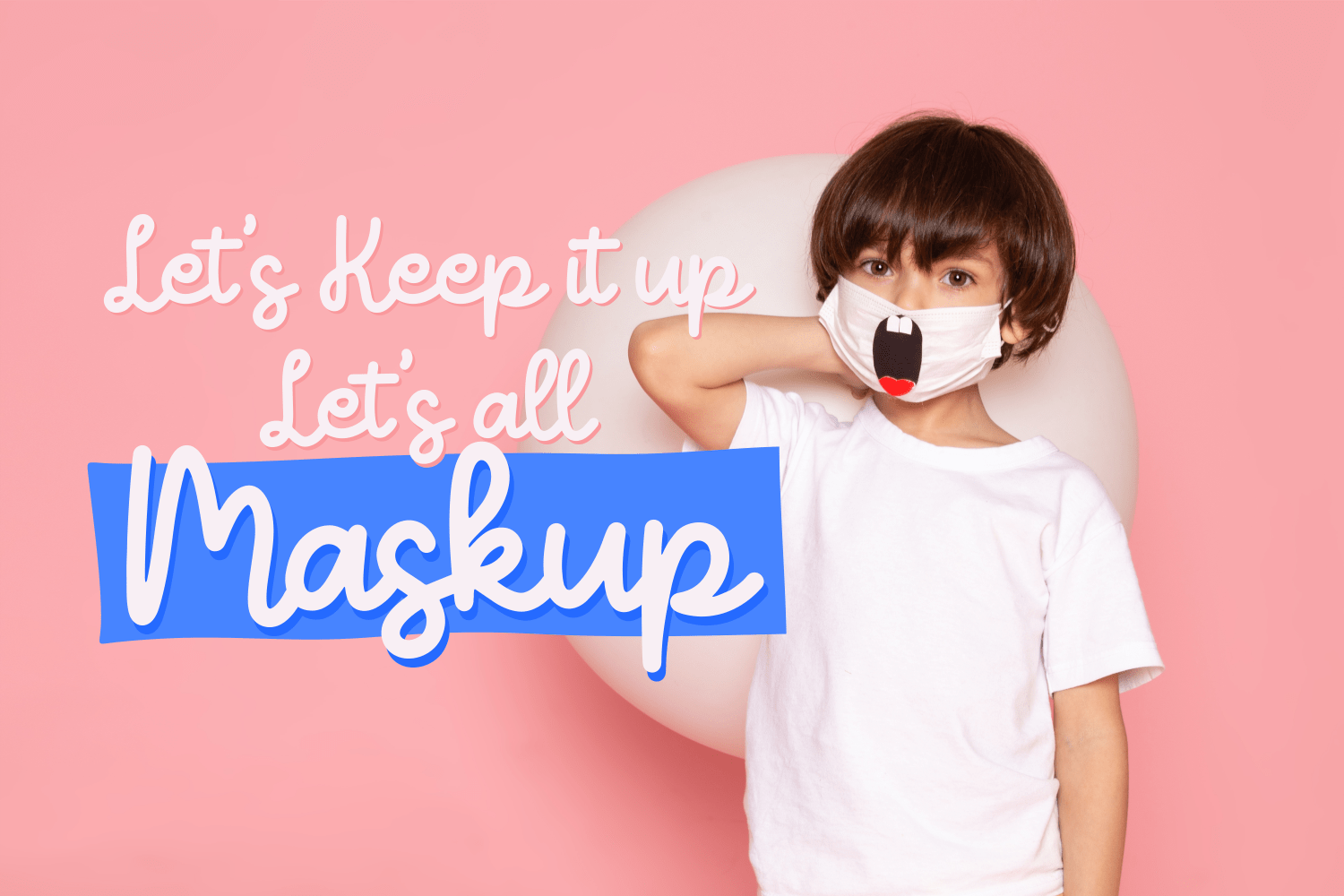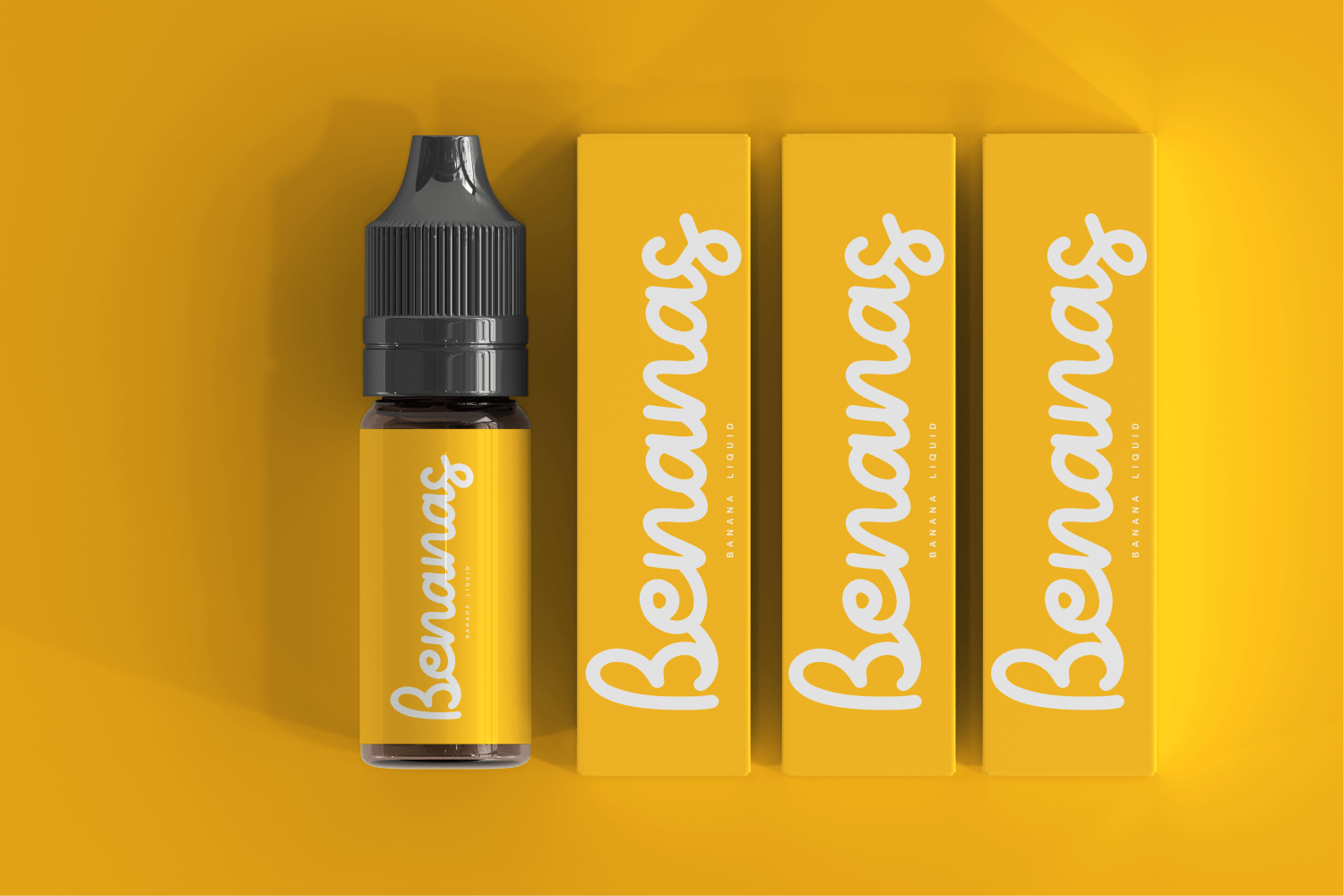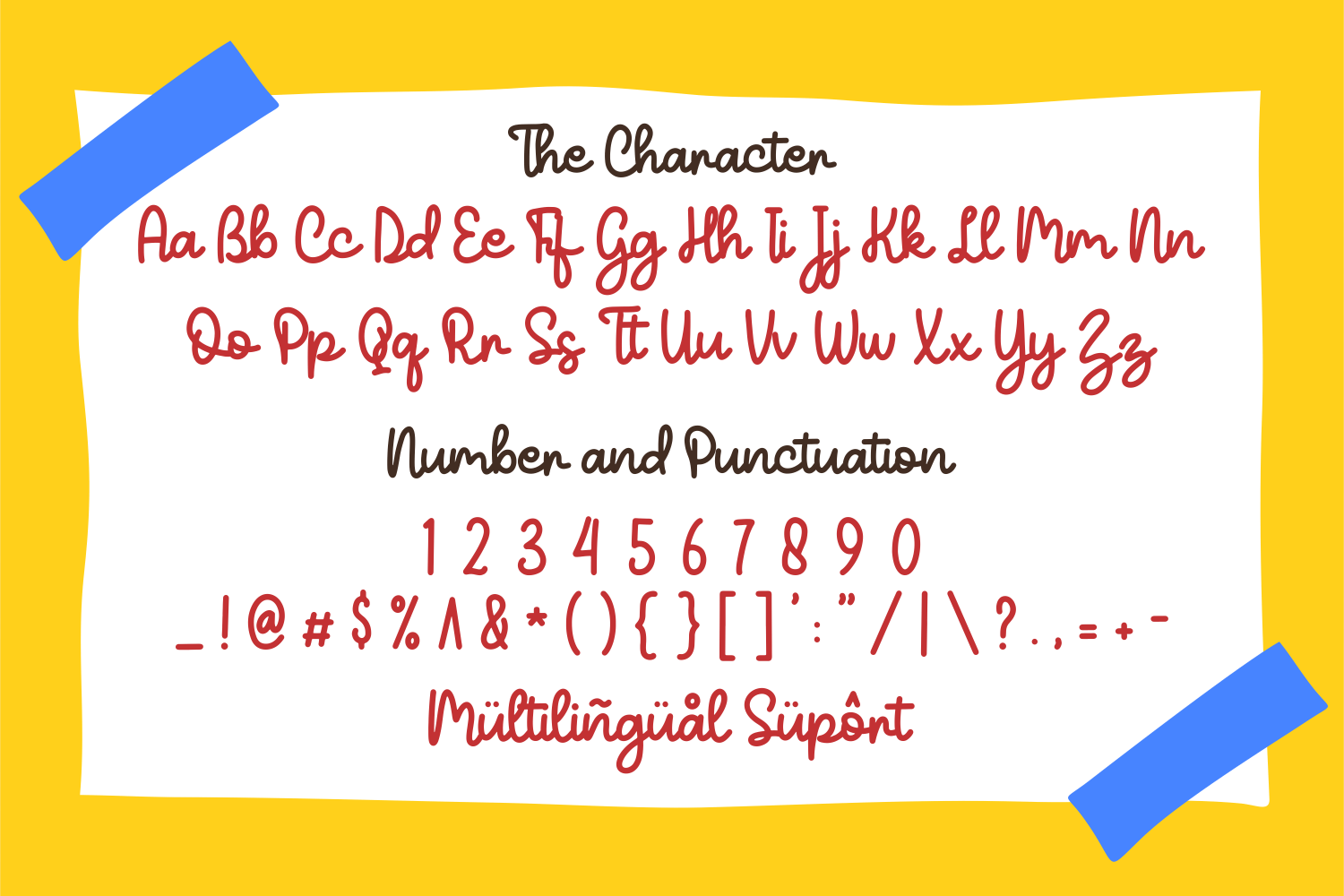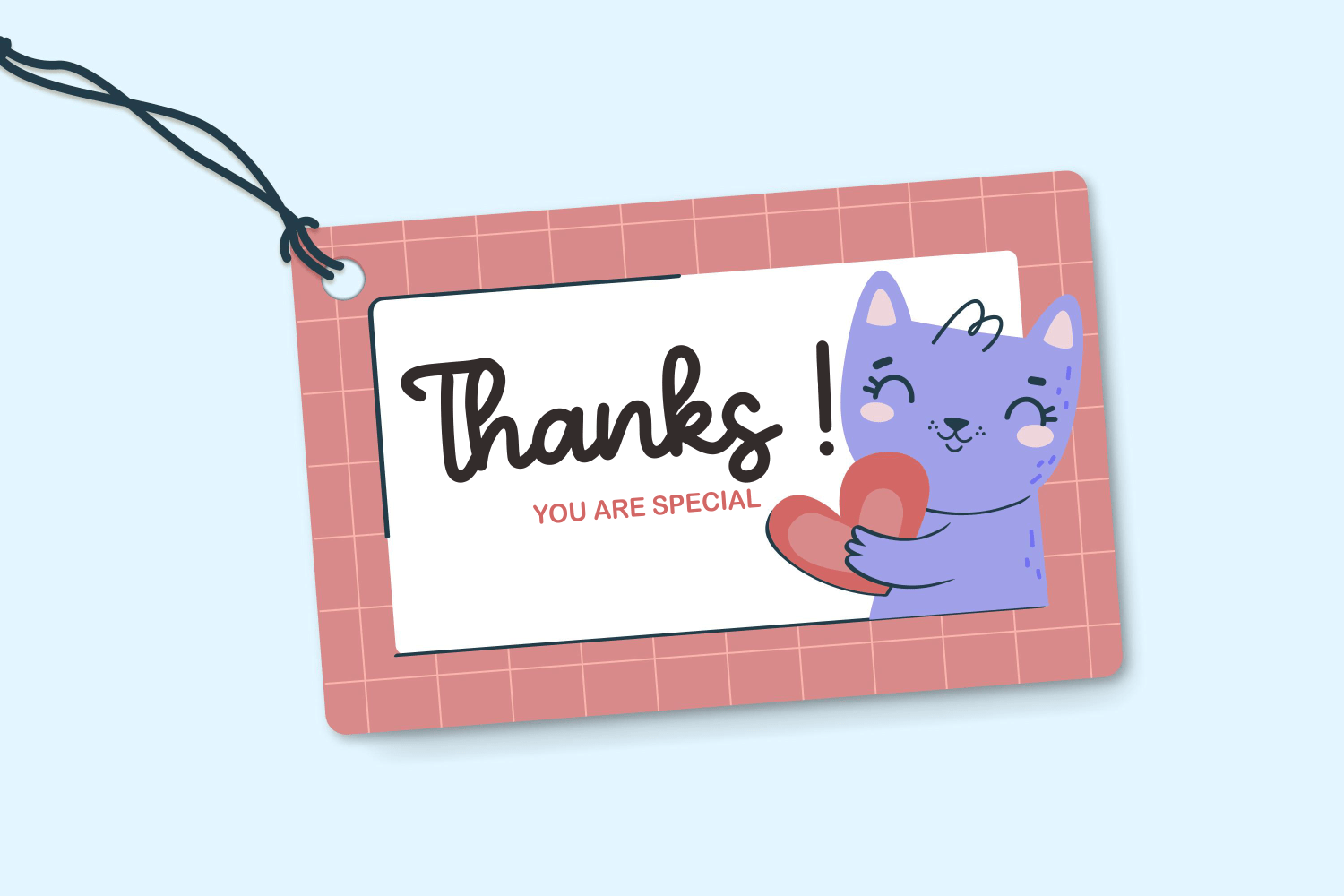
Penapik Font
Penapik Script Font is a flowing handwritten font, described by an elegant touch, perfect for your favorite projects. Fall in love with its incredibly distinct and timeless style and use it to create spectacular designs!